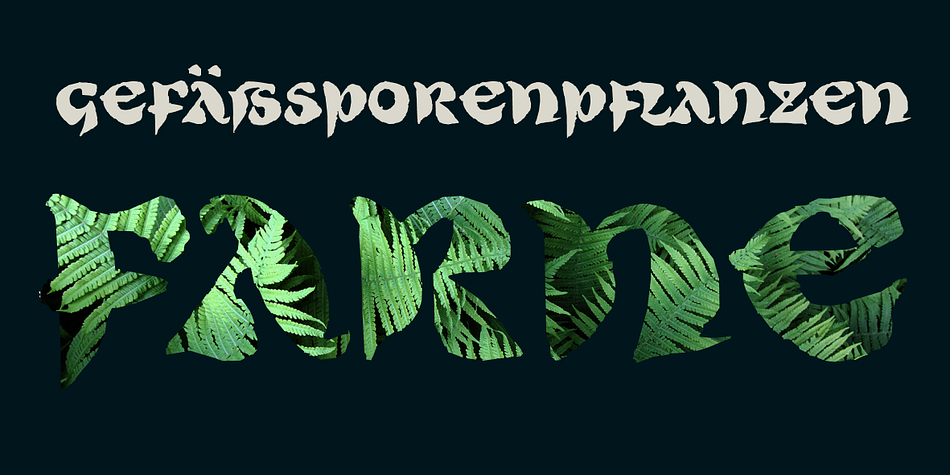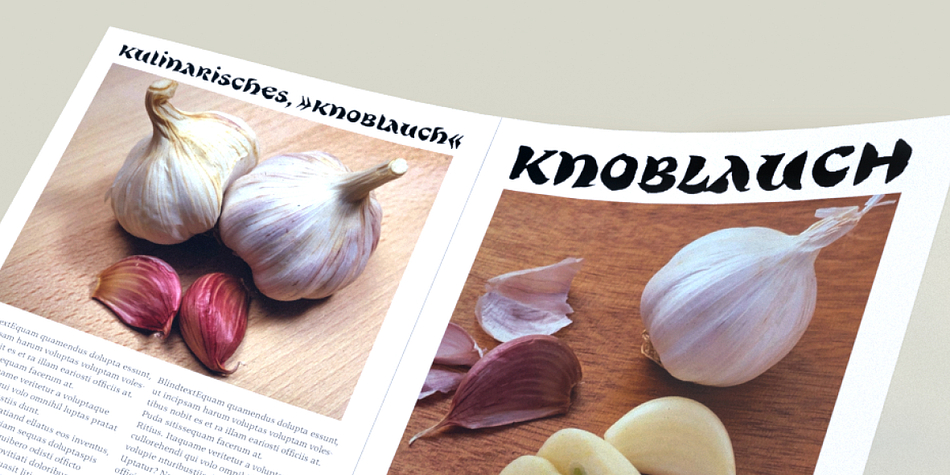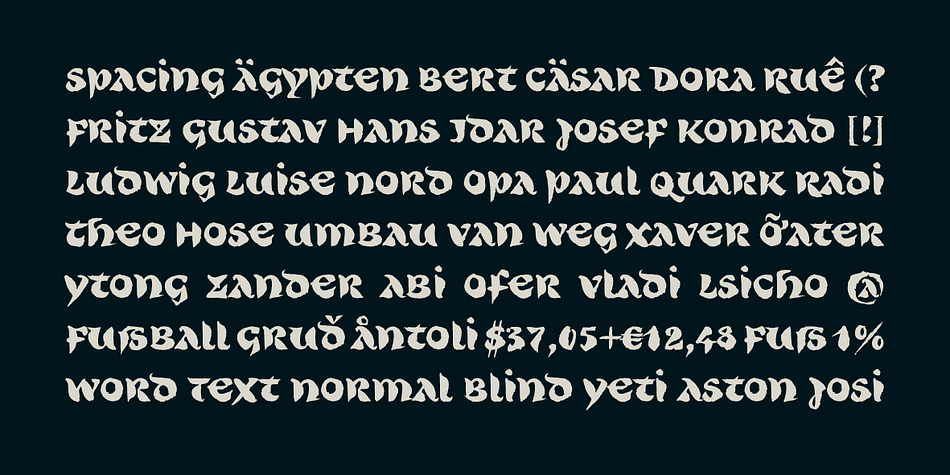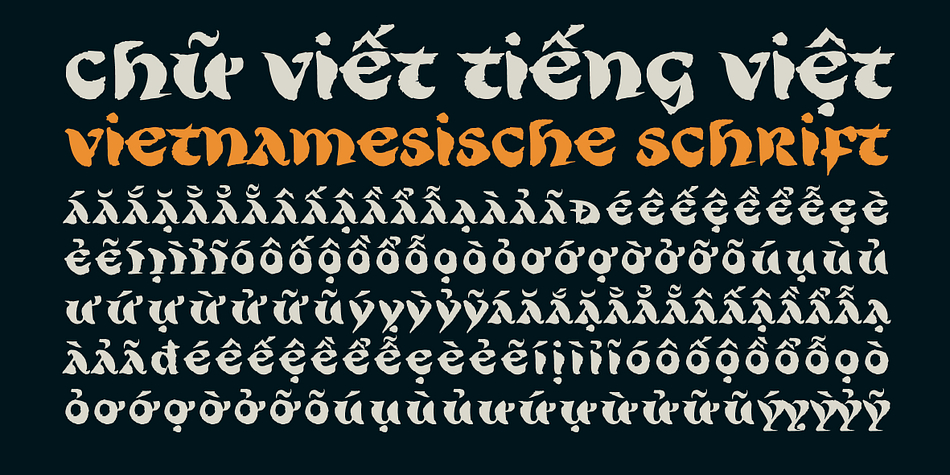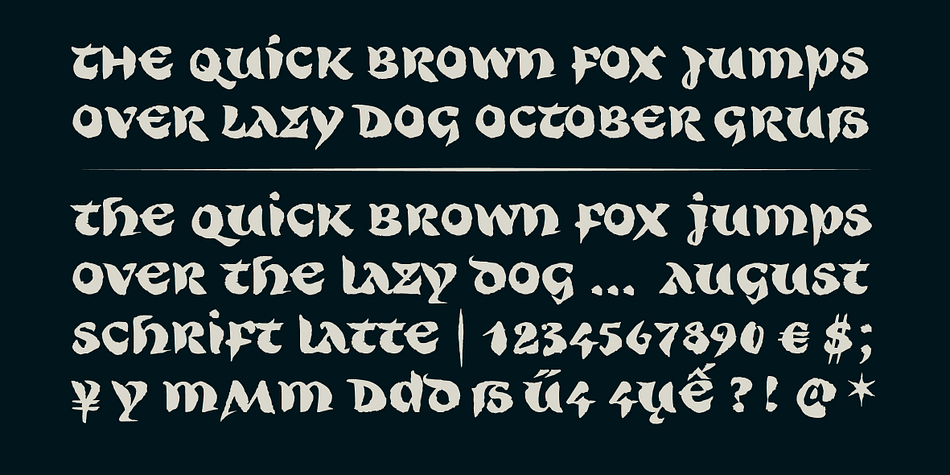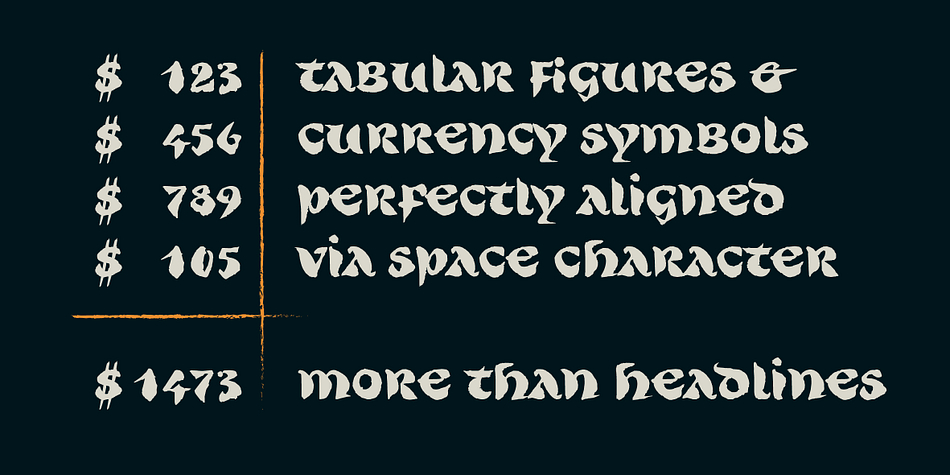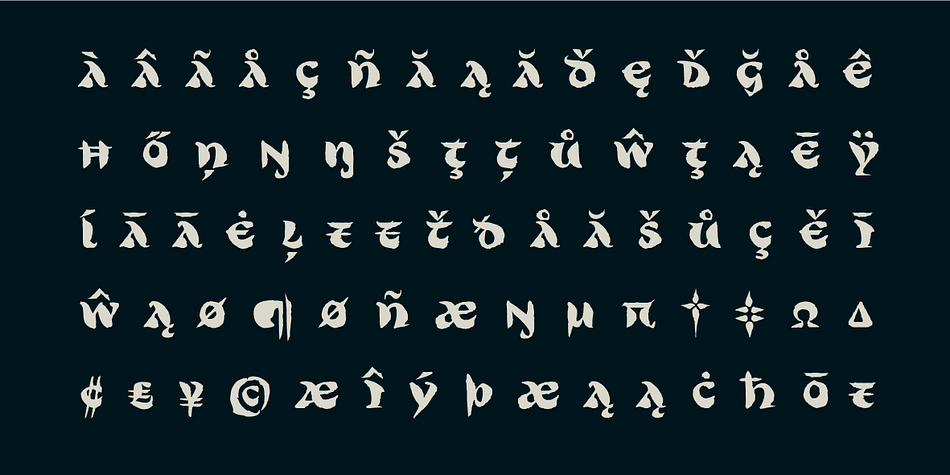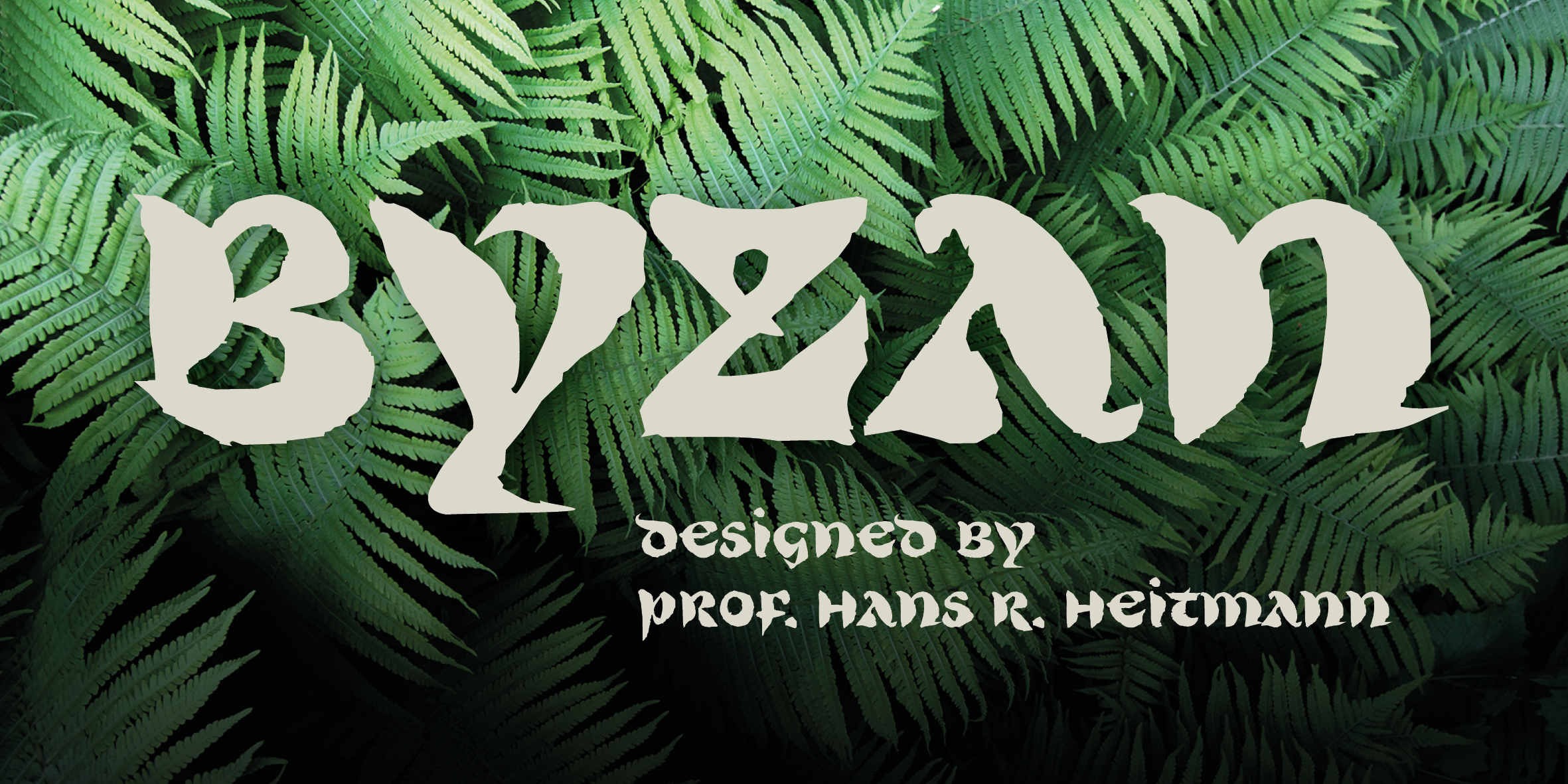
BYZAN
Designed by Hans Heitmann, Byzan is a brush display and historical font published by Finaltype.
Byzan is a decorative brush font, derived from historical uncial scripts.
Foundry Finaltype
Styles Brush Display, Historical
Designer Hans Heitmann